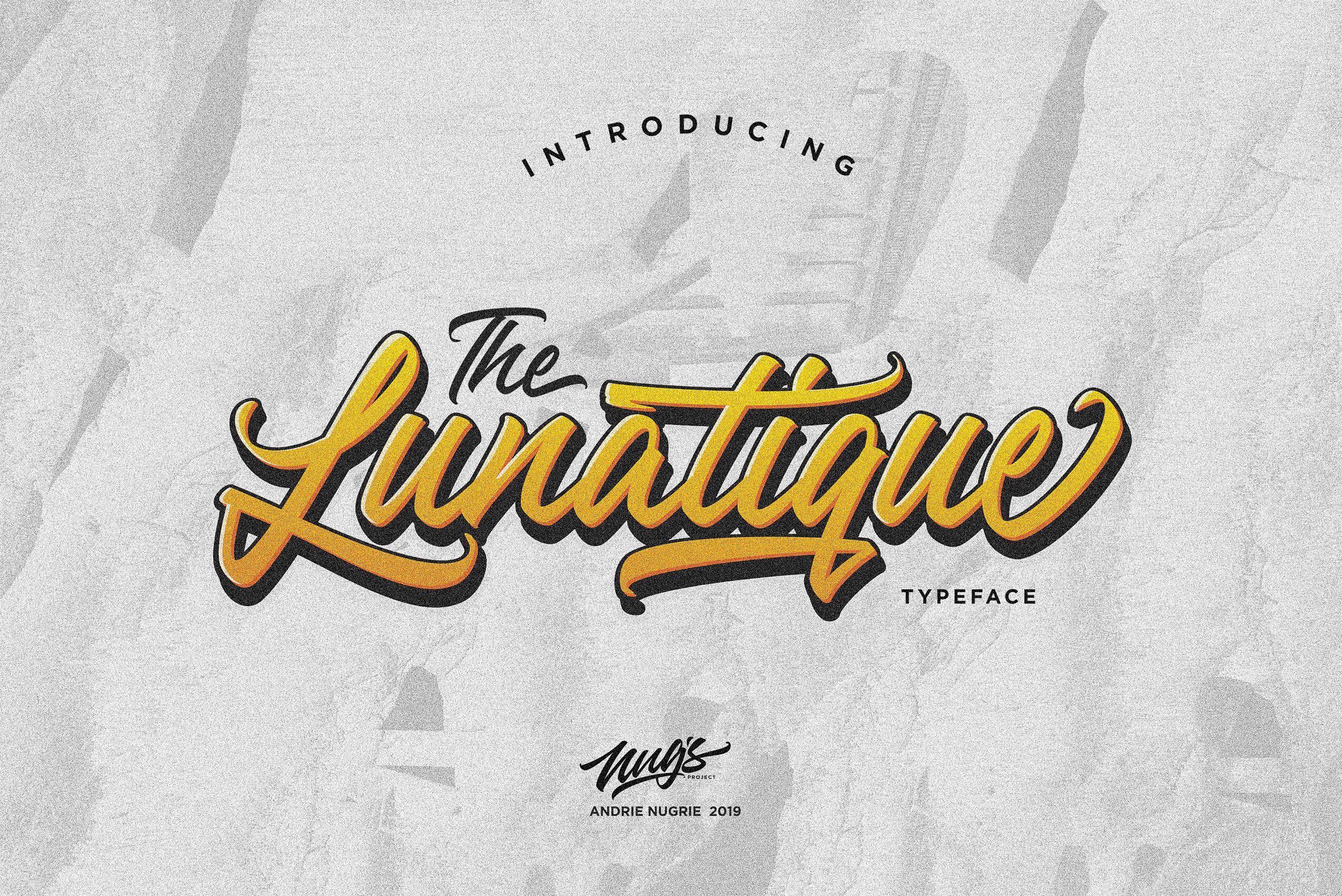
The Lunatique Script Font
Start a new day with a romantic brush script font. Introducing The Lunatique Font. The Lunatique is a brush script font, dynamic and energetic sytle.Can used for various purposes. such as the title, signature, logotype, Tshirt design, , letterhead, signage, labels, newsletters, posters, badges, etc.